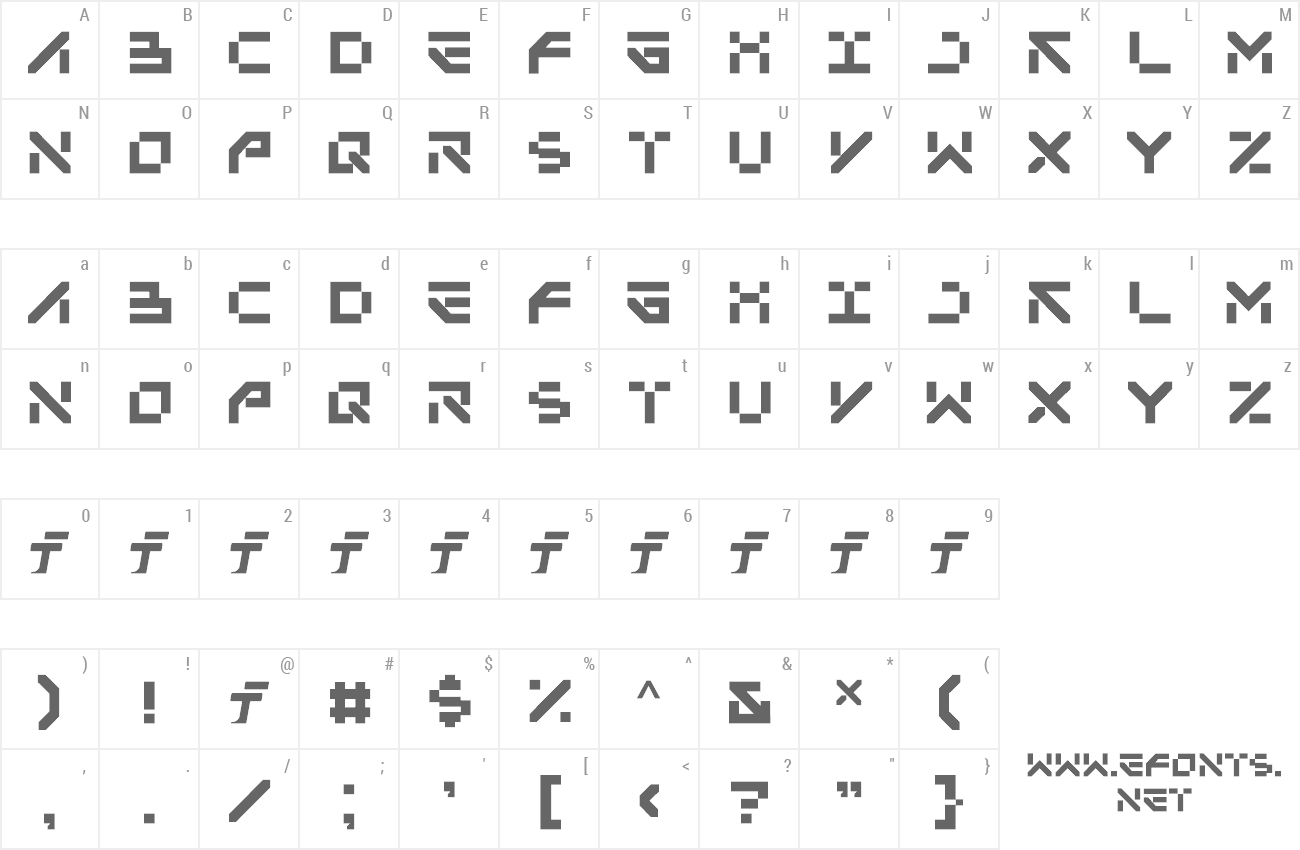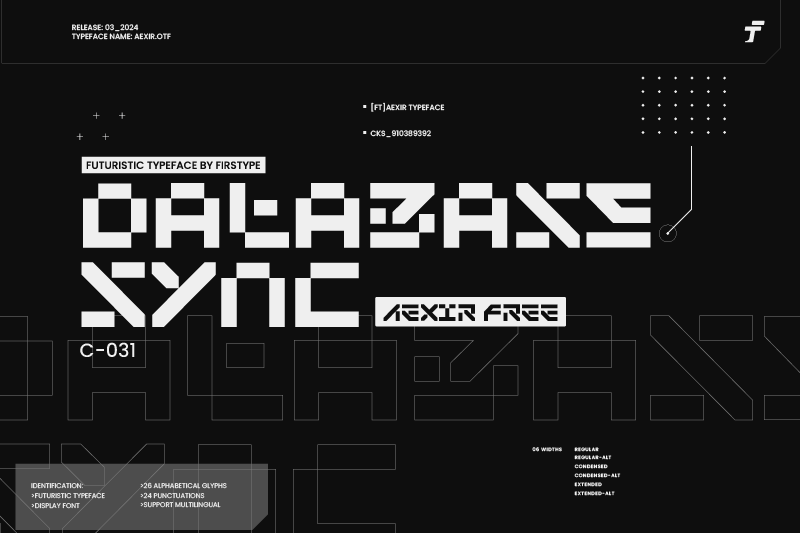
Preview and download Aexir Font. Created by Firstype Studio in Techno Sci-fi styles with Free for personal use license.
Dive into the future of typography with Aexir � a font that embodies the essence of cyberpunk aesthetics and modern design. With its sleek lines and futuristic vibe, Aexir offers a unique blend of style and functionality, making it perfect for a wide range of digital and print applications. Featuring six distinct styles, including regular, condensed, and extended variations, Aexir provides unparalleled flexibility for your creative projects. Each style comes with its own set of alternative typefaces, allowing you to experiment and customize your designs with ease. Whether you're creating digital interfaces, print materials, or gaming graphics, Aexir is the ultimate choice for projects that demand a cutting-edge look. Its cyberpunk-inspired design language lends a sense of innovation and technology to any application, making it ideal for gaming-related content and futuristic themes. Best of all, Aexir is available for free, ensuring accessibility for designers of all levels. Embrace the future of typography and elevate your designs with Aexir � the font of choice for those who dare to push the boundaries of creativity. Please exercise caution and allocate time to carefully review the terms and conditions before making a decision to utilize the font commercially. Remember, ignorance of the law does not absolve responsibility. By installing or using this font, you acknowledge and agree to the terms of the Font Usage Agreement stated below: This font is strictly intended for PERSONAL USE only and is provided free of charge. PROMOTIONAL & COMMERCIAL USE is strictly prohibited. A LICENSE is required for any form of Promotional or Commercial Use. Kindly CONTACT ME before engaging in any Promotional or Commercial Use. Your understanding and adherence to these terms are greatly appreciated. More... |